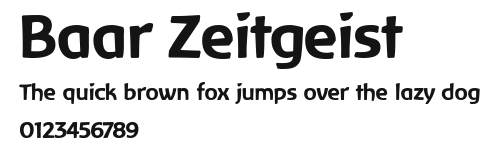
Baar Zeitgeist Preview
• Font Name: Baar Zeitgeist
• Full Font Name: Baar Zeitgeist
About Baar Zeitgeist.ttf
Baar Zeitgeist.ttf is a modern, elegant sans-serif font designed for ultimate readability and visual harmony. Perfect for branding, headlines, web design, and print materials.